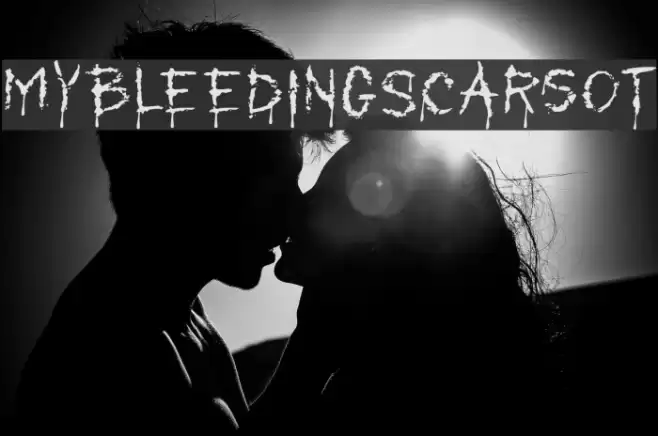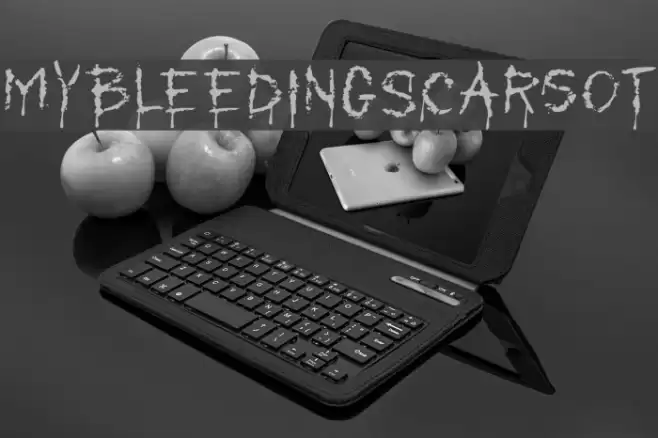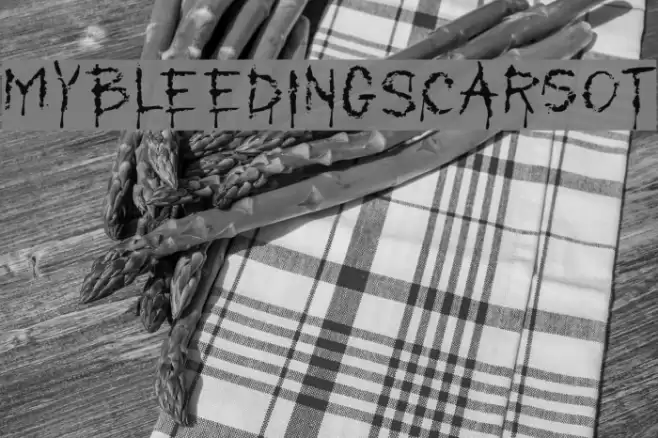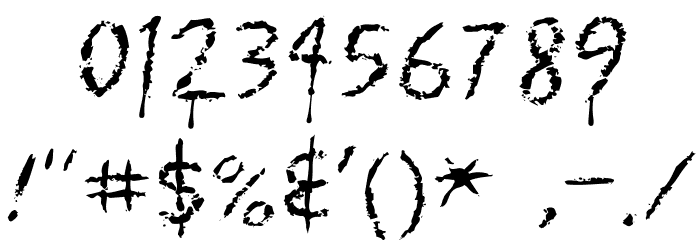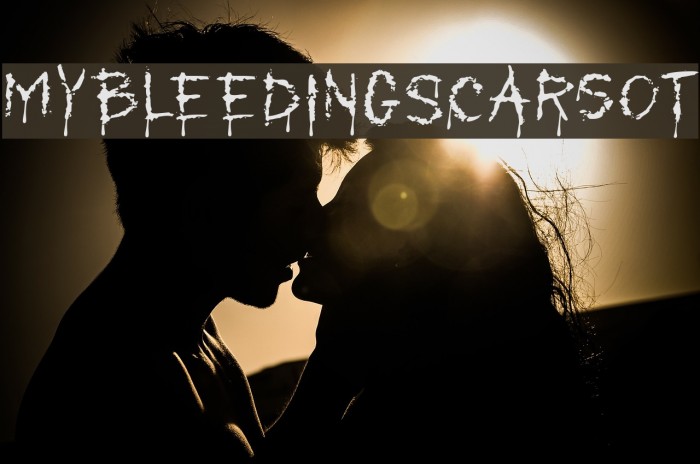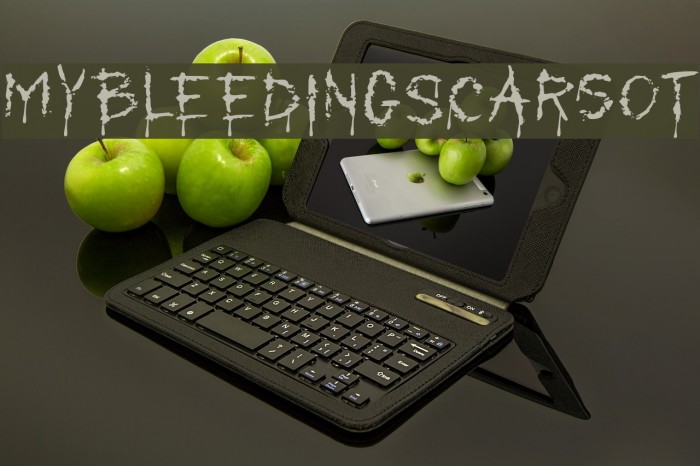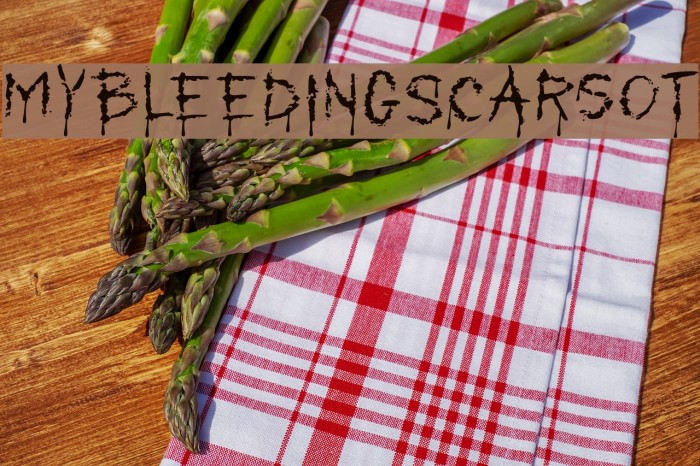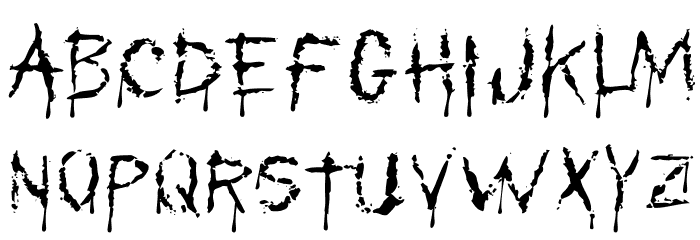
MyBleedingScarsOT Font
MyBleedingScarsOT Description
This font exhibits a raw, distressed appearance, reminiscent of splattered ink or paint. The characters are irregular and jagged, giving a sense of chaos and intensity. Each letter appears as if it has been scratched or etched, with uneven edges and varying thicknesses. The overall look is bold and dramatic, making it ideal for projects that require a strong visual impact. The numbers and special characters maintain the same distressed style, ensuring consistency across all text elements.
A bold, distressed font with a chaotic, splattered ink appearance from Uncategorized fonts.
- Proposed Projects: Ideal for horror-themed designs, album covers, movie posters, or any project seeking a dramatic and edgy aesthetic.